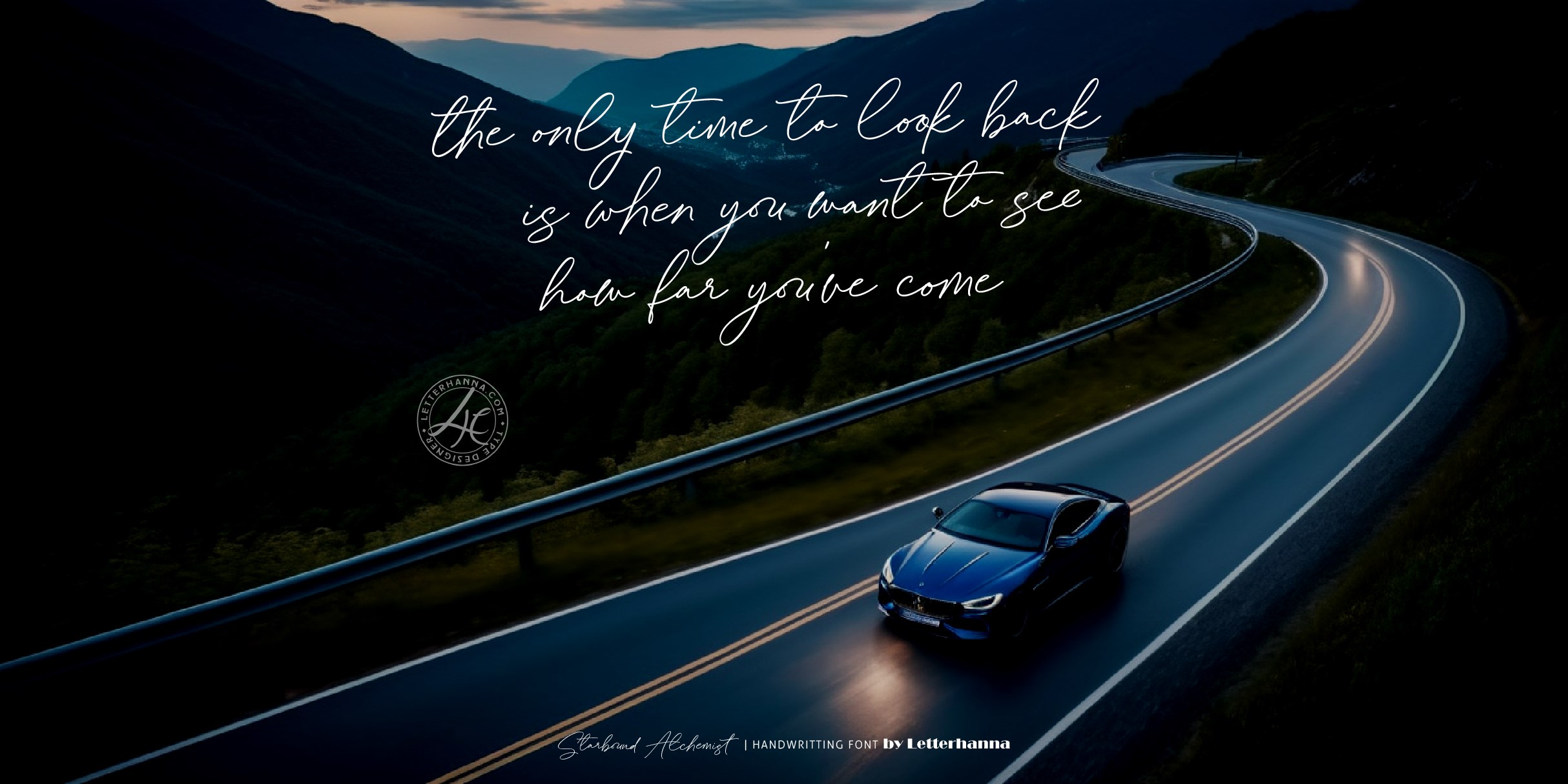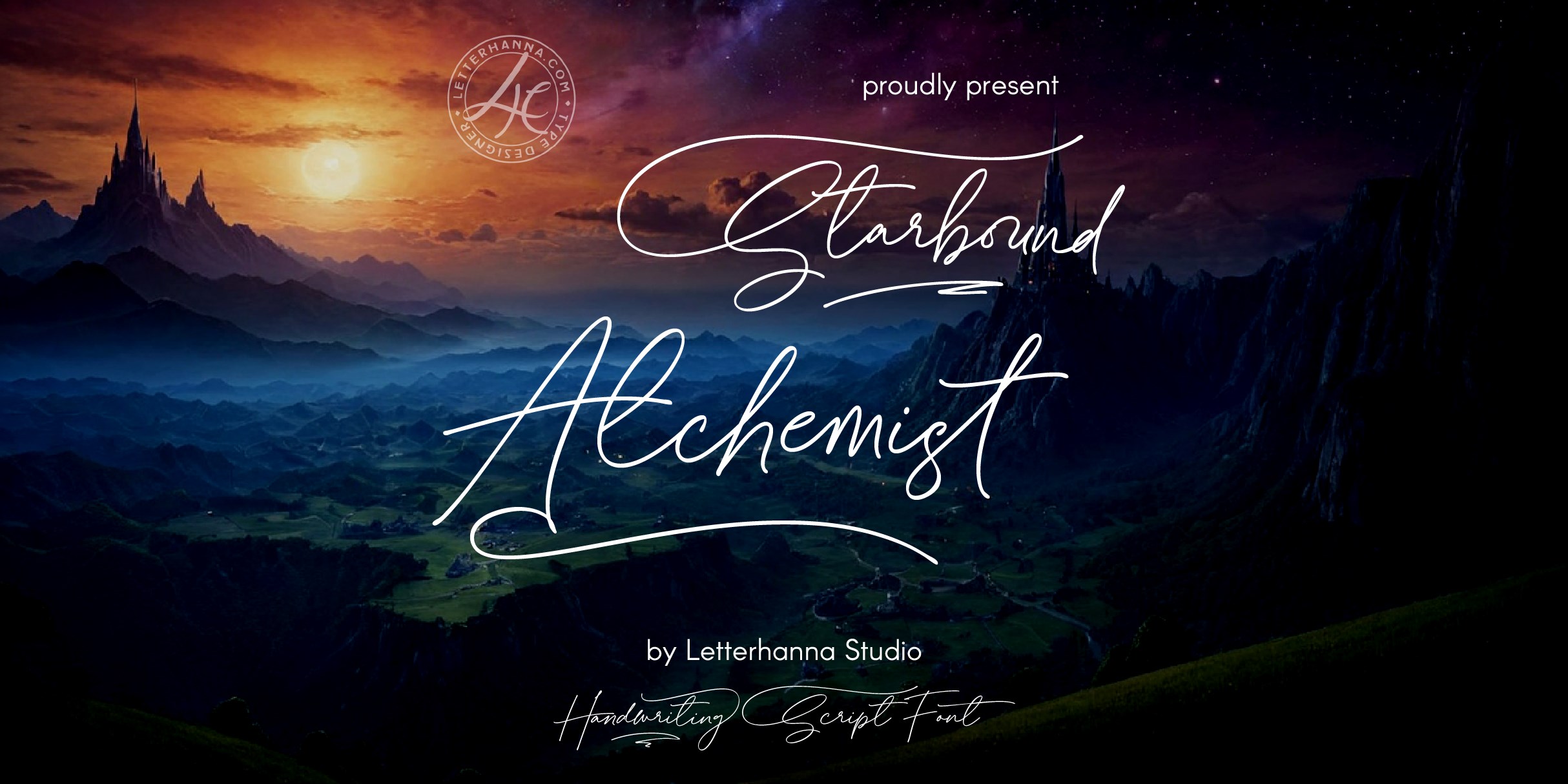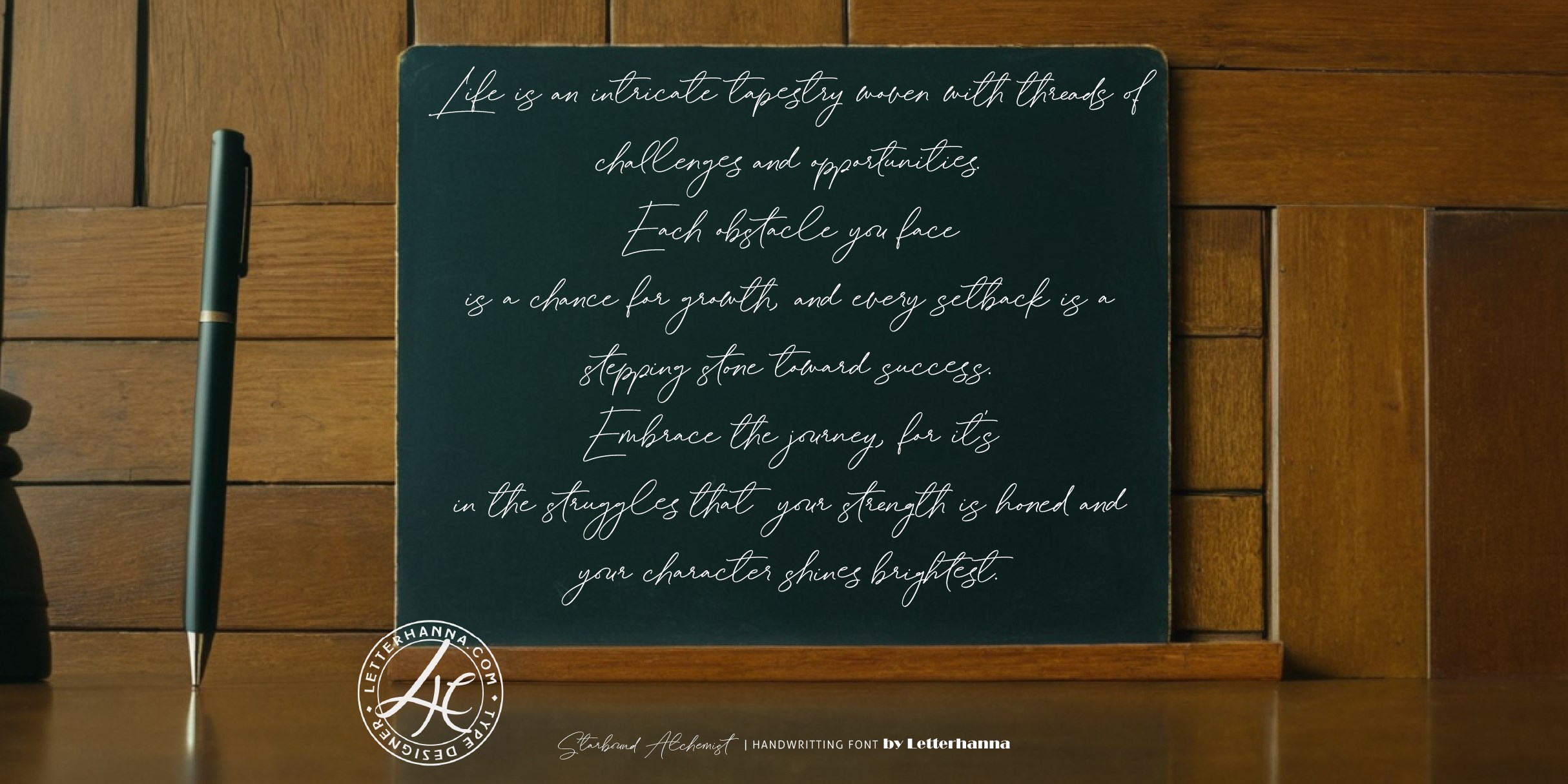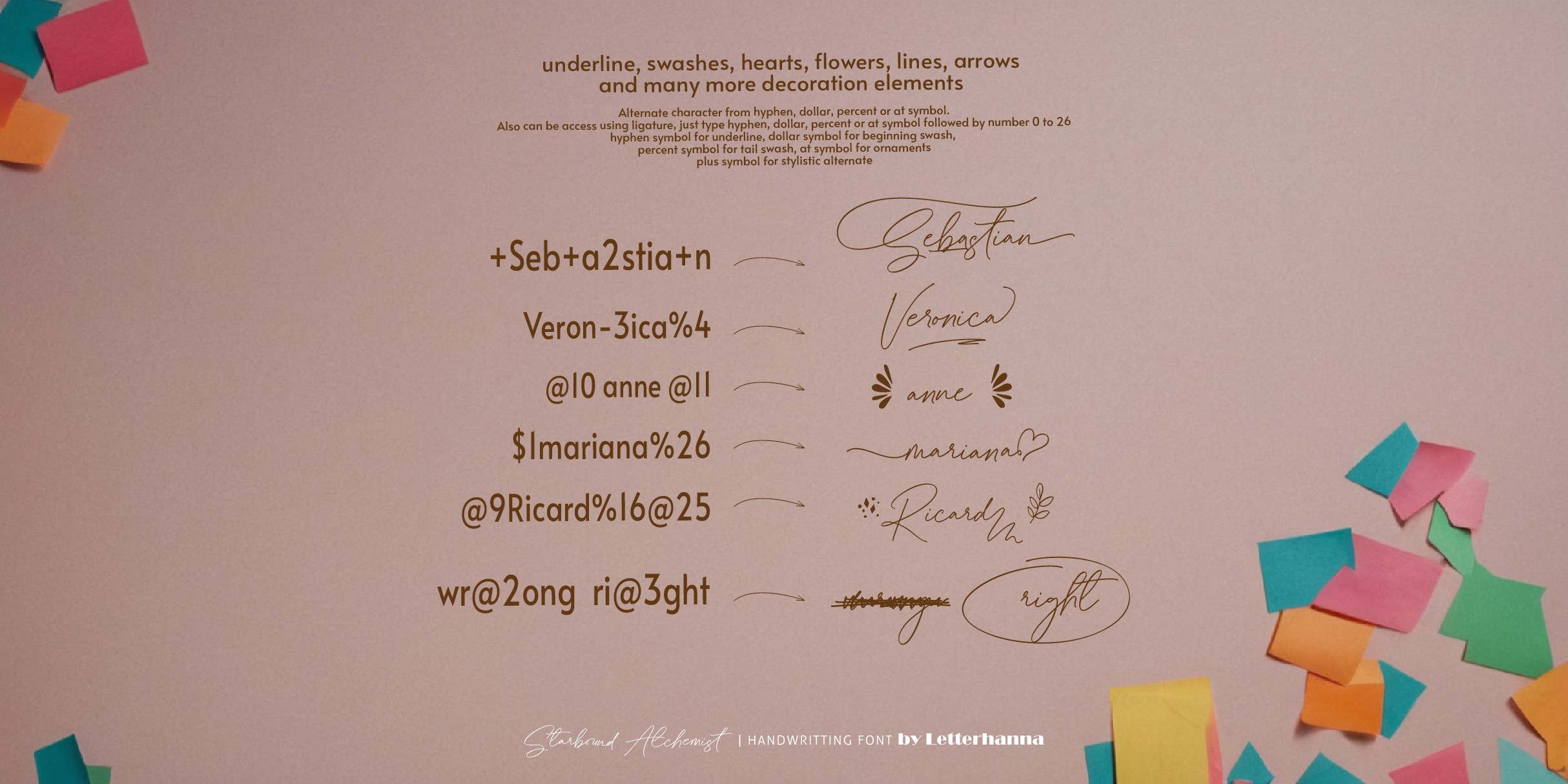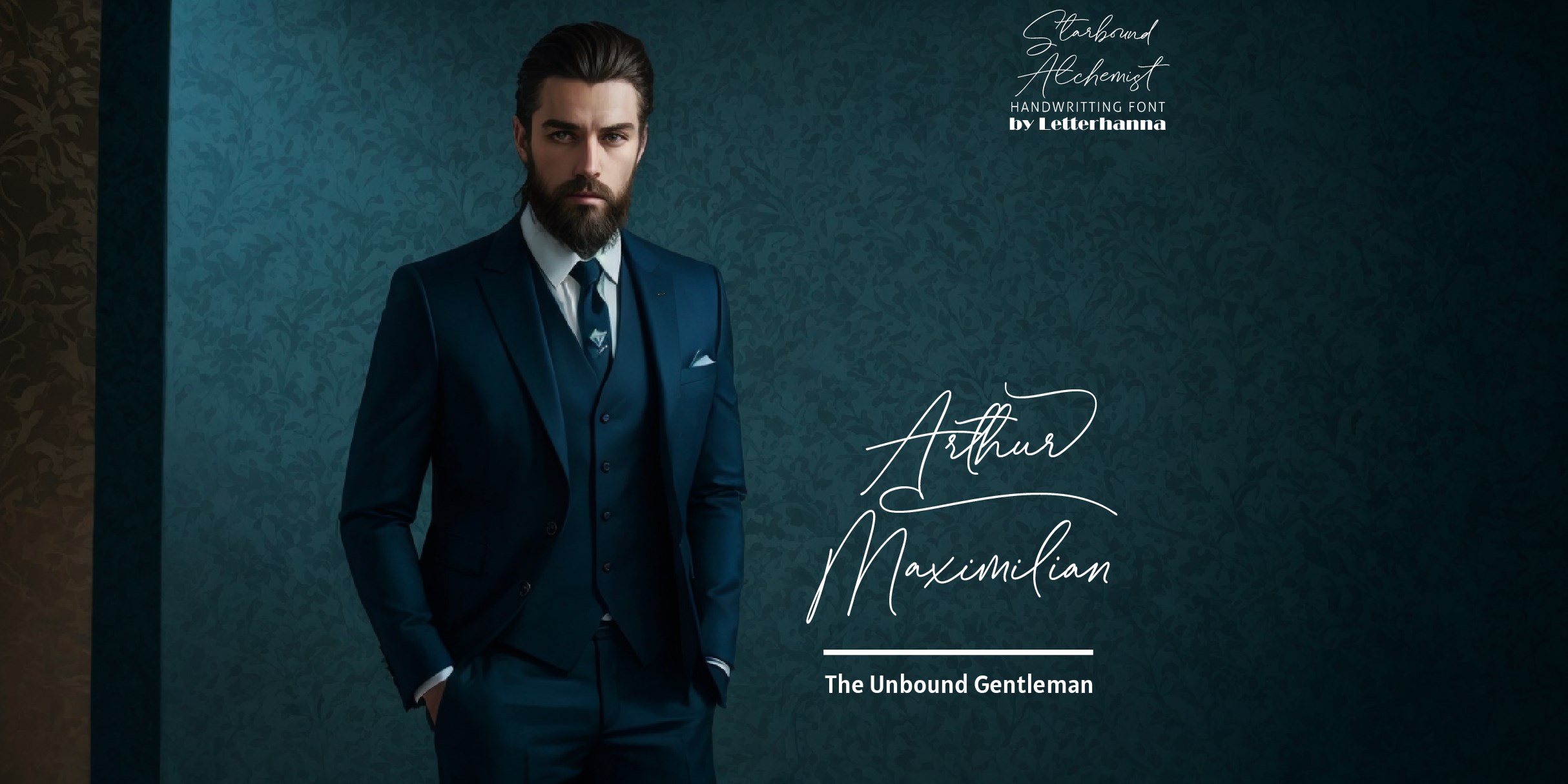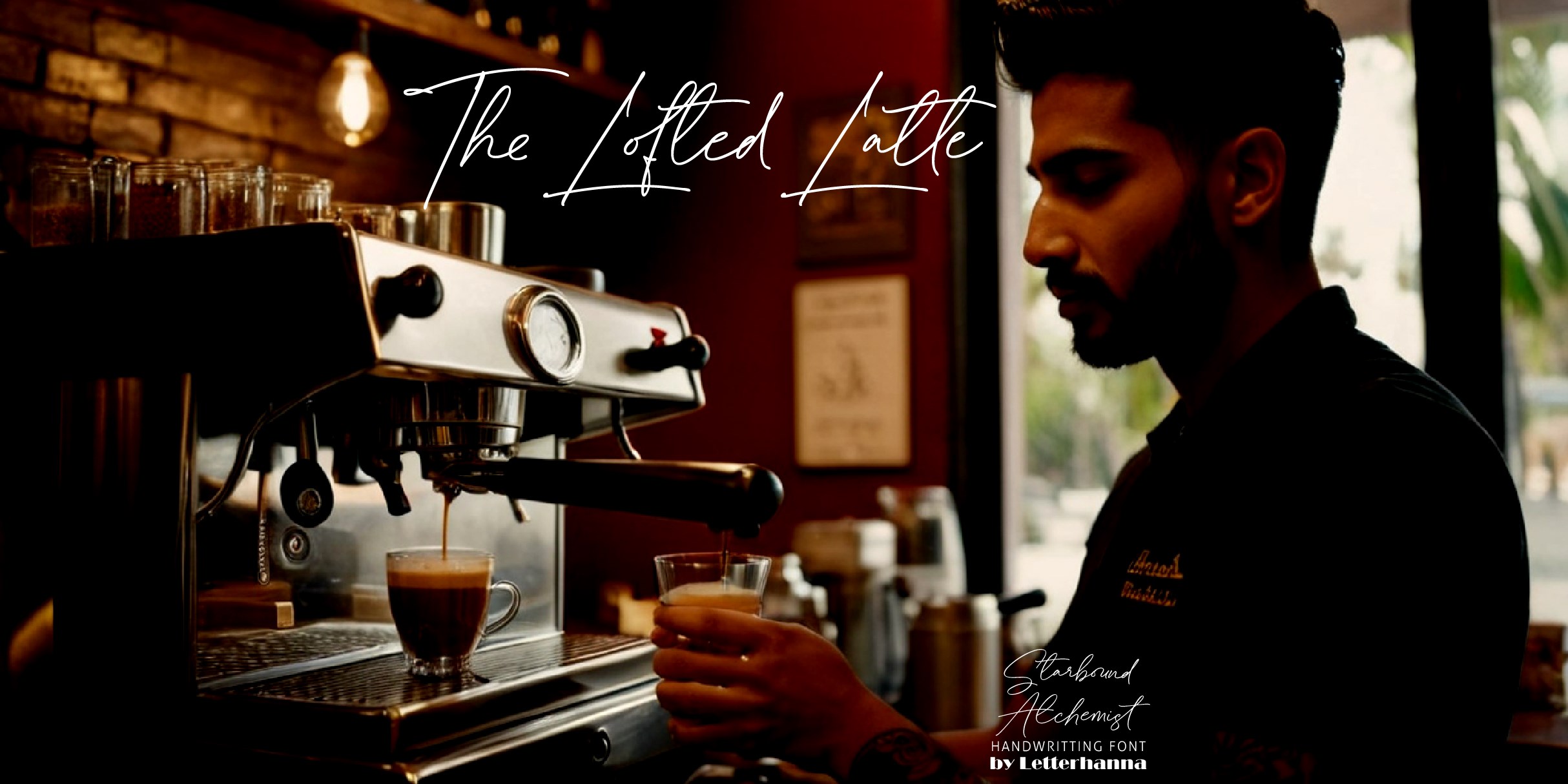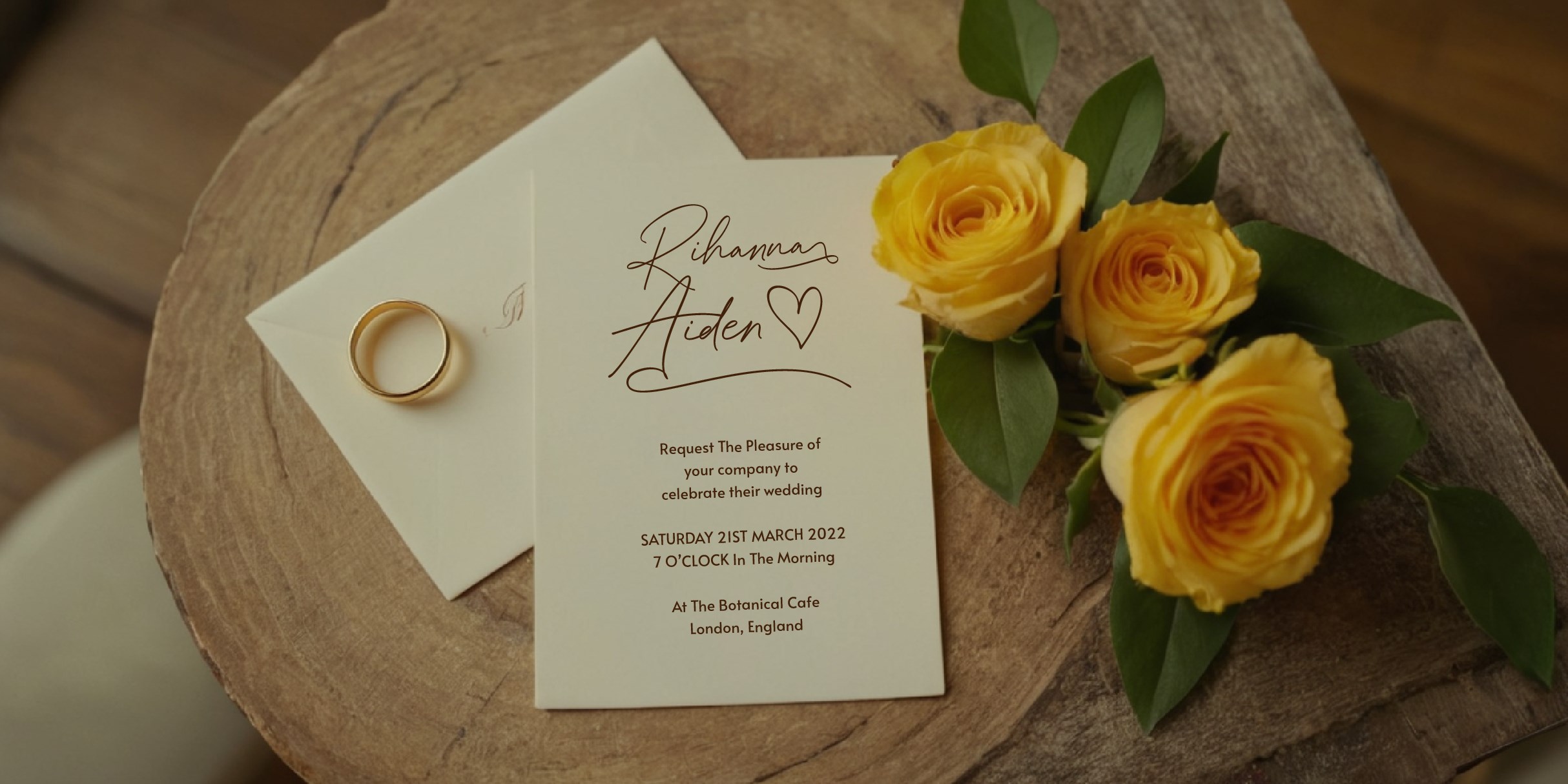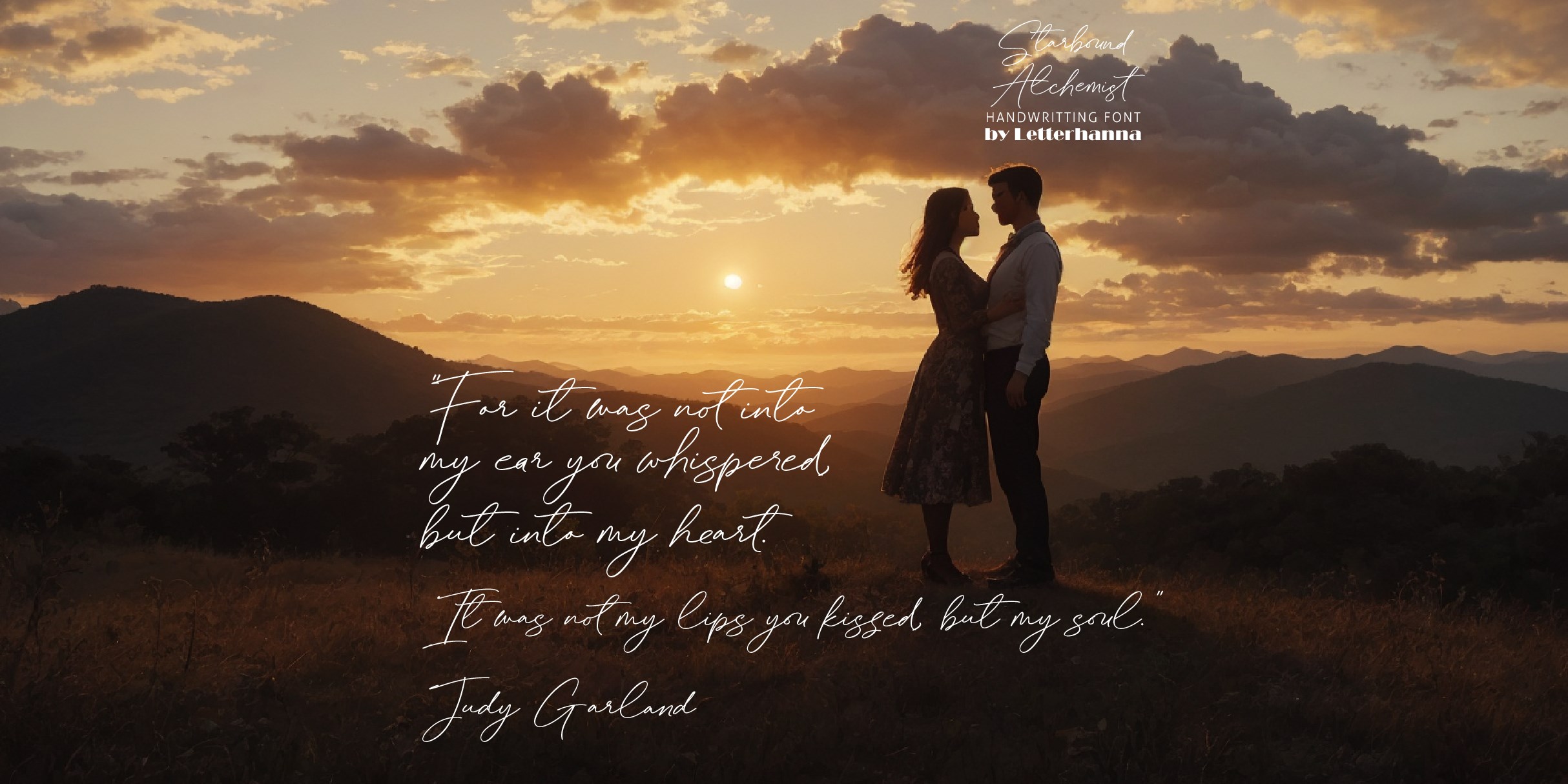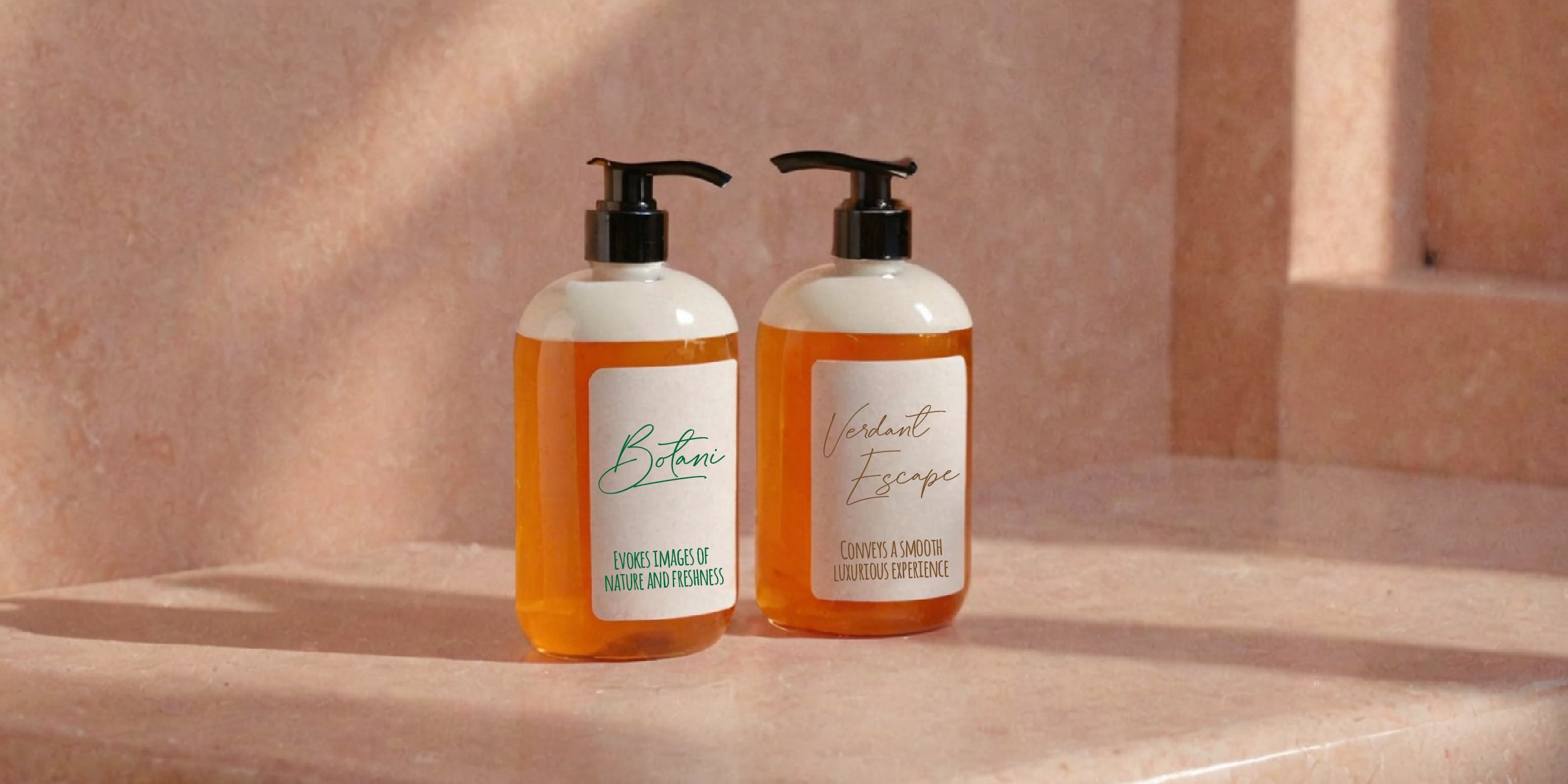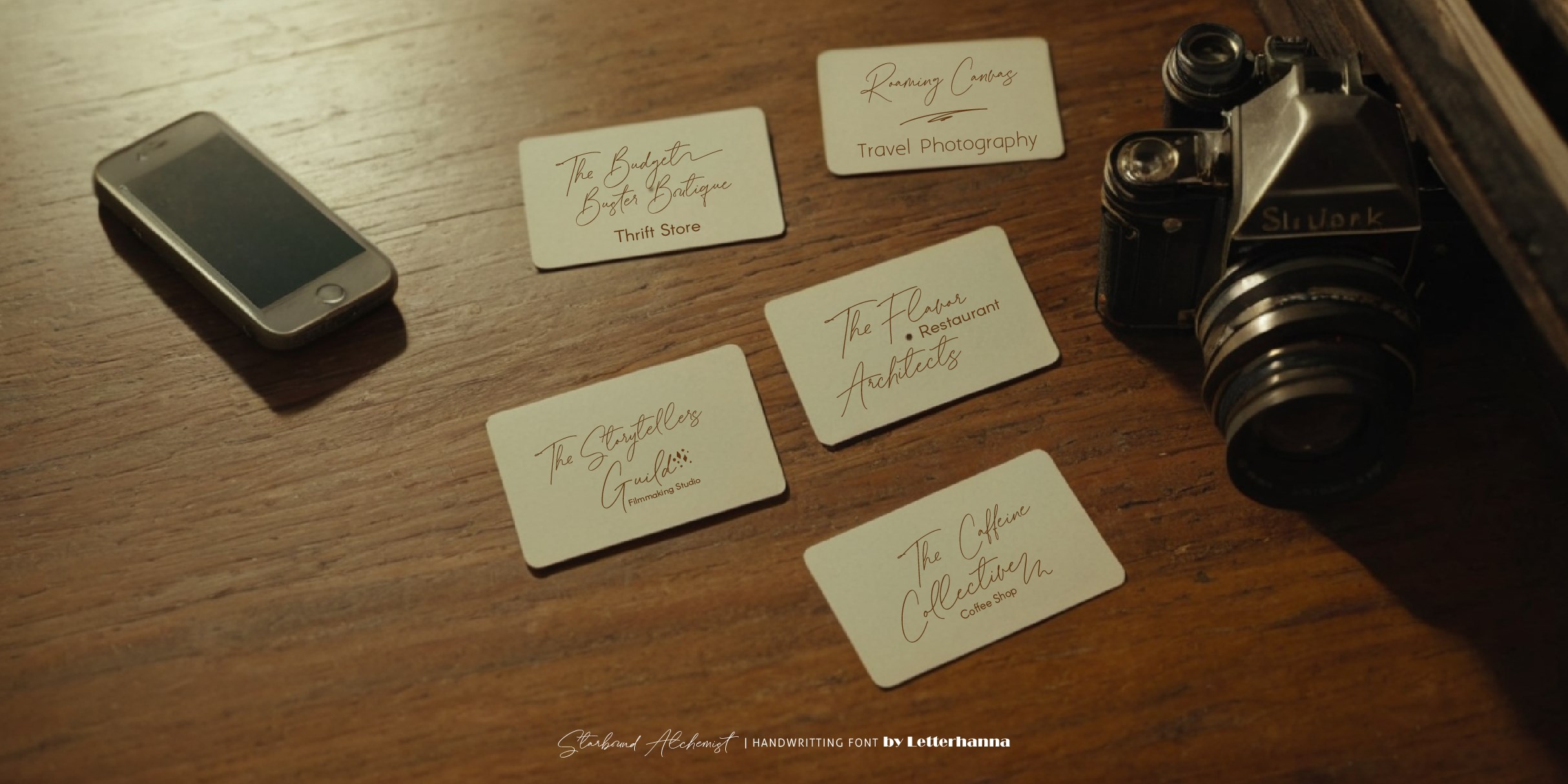
Introducing Starbound Alchemist: A Font for the Mystical Explorer
Embark on a celestial journey with Starbound Alchemist, a new handwritten script font that captures the essence of cosmic wonder and arcane knowledge. Its whimsical glyphs dance across the page, evoking the spirit of ancient alchemists and stargazers.
Perfect for:
- Crafting magical invitations, stationery, and branding materials
- Adding a touch of enchantment to logos, posters, and book covers
- Creating captivating headlines and quotes
Stylistic alternate can be access by type plus symbol “+” in front of the original letter, for example type +A to get stylistic alternate of letter A capital.
Underline swashes can be access by type hyphen symbol “-” then followed by number 1 to 30, for example type -3, -22 or -17 etc to get various different underline swashes.
Head/beginning swashes can be access by type dollar symbol “$” then followed by number 1 to 9, for example type $2 or $8 to get various different head/beginning swashes.
Tail/ending swashes can be access by type percent symbol “%” then followed by number 1 to 30, for example type %3 or %15 etc to get various different tail/ending swashes.
Ornaments can be access by type at symbol “at” then followed by number 1 to 26, for example type @4 or @13 etc to get various different ornaments.
FEATURES
– Uppercase and Lowercase letters
– Numbering and Punctuations
– Multilingual Support
– Ligatures
– Beginning and ending swashes
– Underline swashes
– Stylistic alternate
– Ornaments
– Easy access swash just by using ligatures